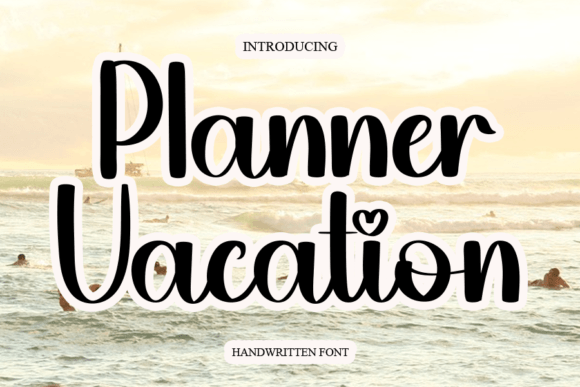
Dive into the world of Planner Vacation Font, a vivacious and charming script font crafted to bring a touch of playfulness and warmth to your creative endeavors. With its whimsical curves and bubbly letterforms, this font exudes a sense of joy and celebration, making it the perfect choice for adding a personal touch to your designs.
Whether you're a seasoned designer or just starting your creative journey, Planner Vacation Font is incredibly versatile and easy to use. Its playful nature lends itself beautifully to a wide range of projects, from wedding invitations and greeting cards to digital designs and social media graphics.
But what truly sets Planner Vacation Font apart is its ability to evoke emotions and create connections. Its whimsical charm has a way of capturing hearts and spreading joy, making it the perfect choice for projects that aim to inspire, uplift, and bring a smile to people's faces.
So, embrace the playful spirit of Planner Vacation Font and let your creativity soar. Use it to create designs that radiate happiness, spread love, and make a lasting impression.
- Delightful and charming script font
- Exudes a sense of joy and celebration
- Perfect for wedding invitations, greeting cards, and digital designs
- Easy to use and incredibly versatile
- Evokes emotions and creates connections